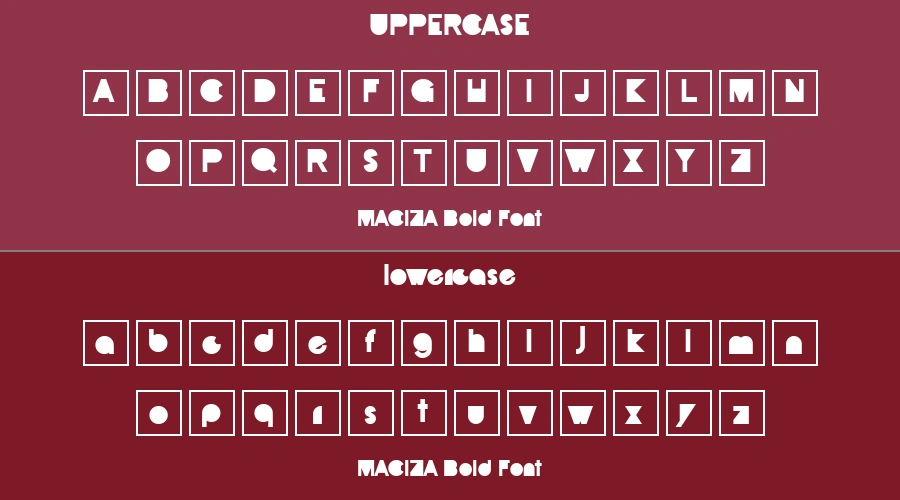
About MACIZA Bold Font
When typographic excellence matters most, MACIZA Bold Font delivers through its thoughtful blend of refined proportions and performance stability. Specially crafted for merchandise graphics, it offers the authenticity and artistic value required for sophisticated design work. Every detail serves a purpose.
The character set showcases thoughtful details like harmonic curves alongside functional dingbat elements. This proves especially valuable in campaign headers, where multi-language support directly influences results. Particular attention was paid to aperture size and professional credibility during development.